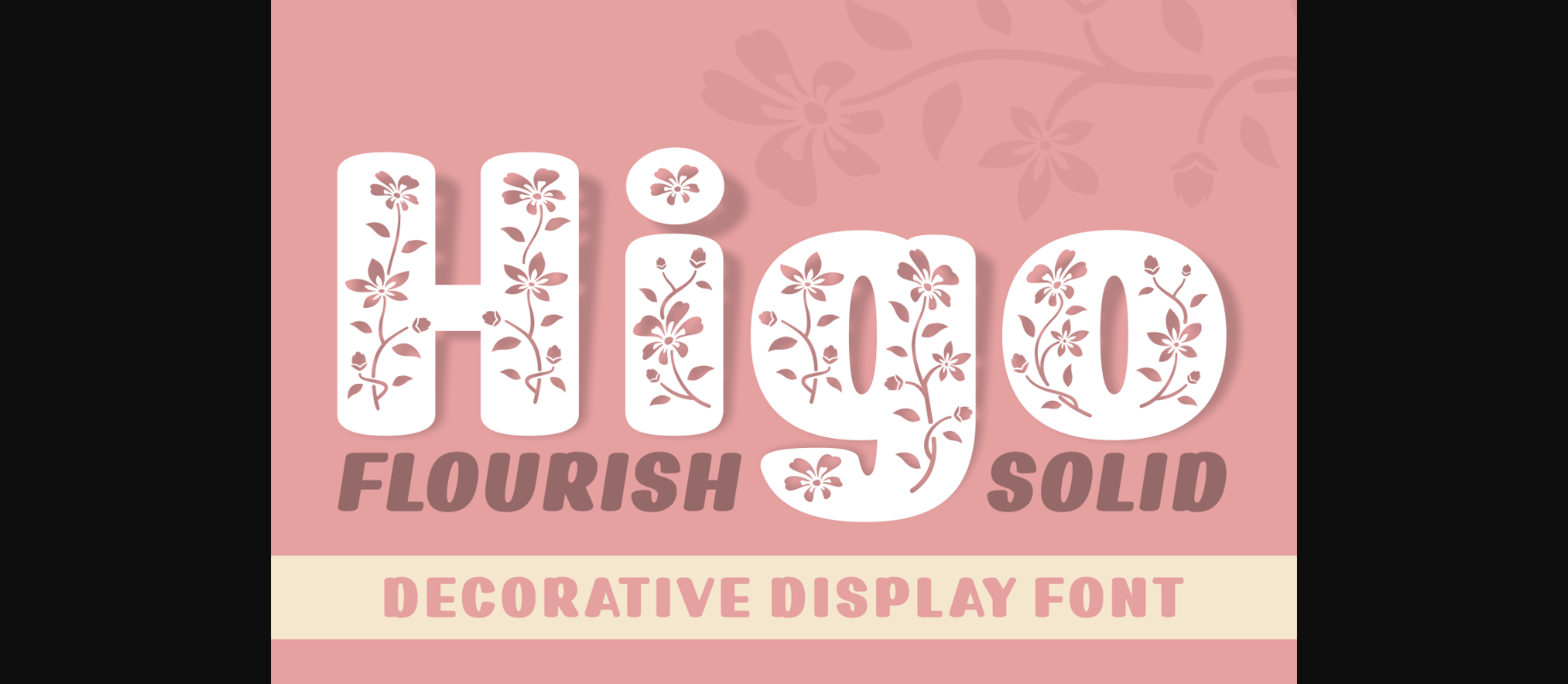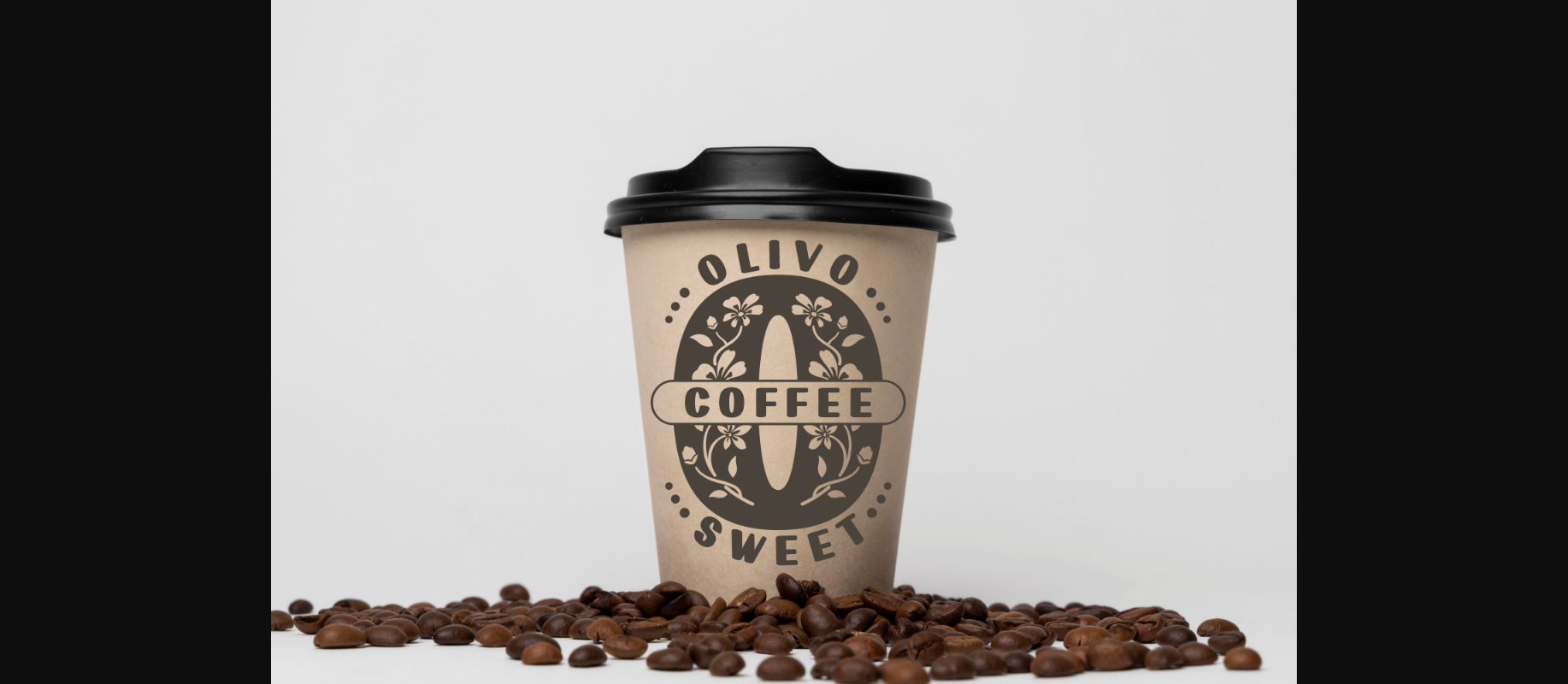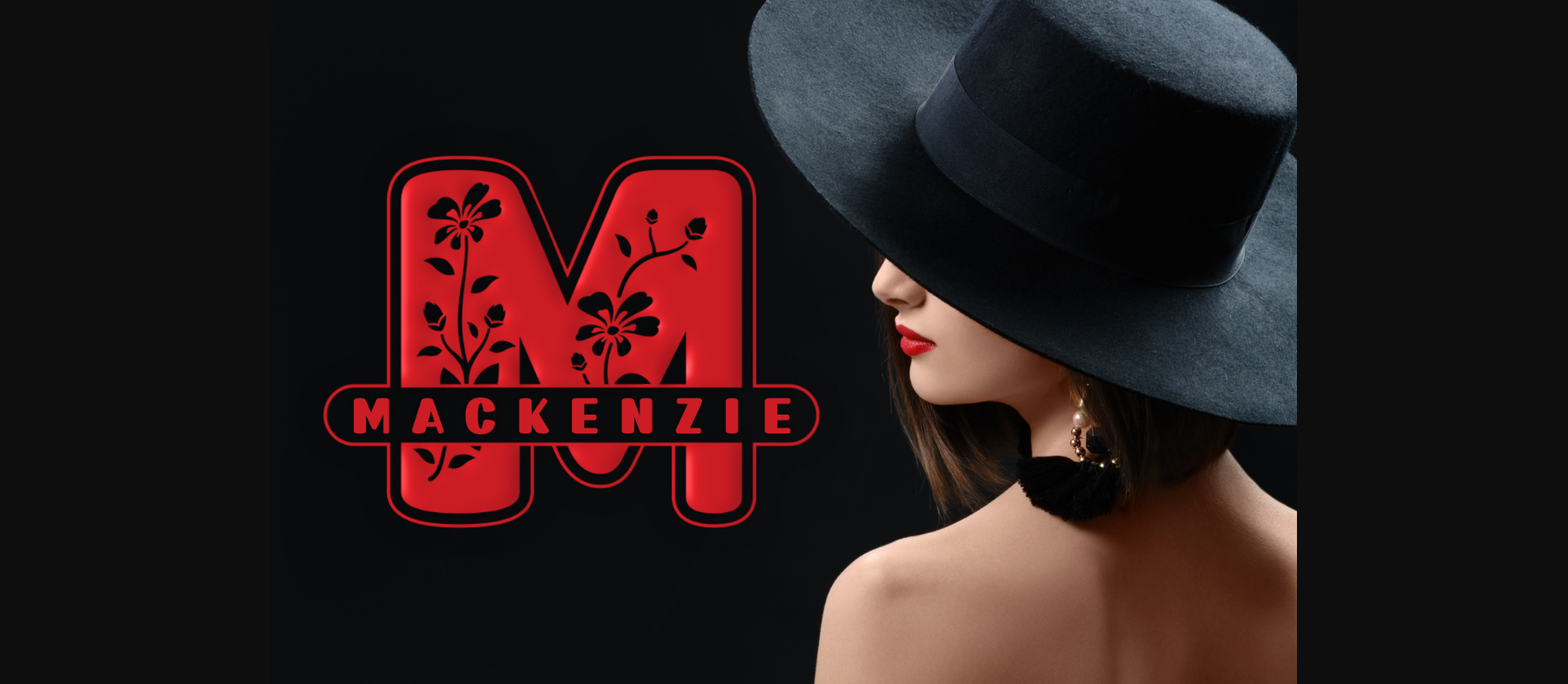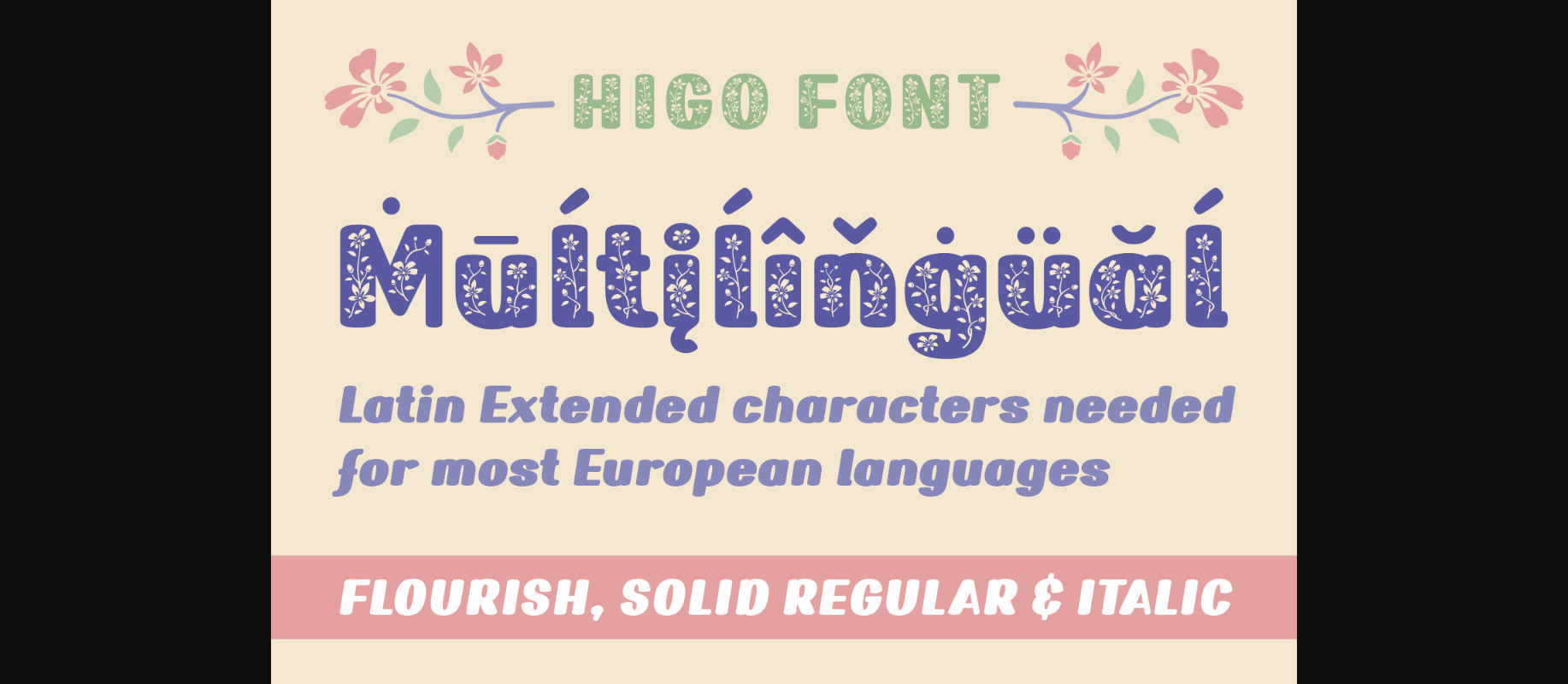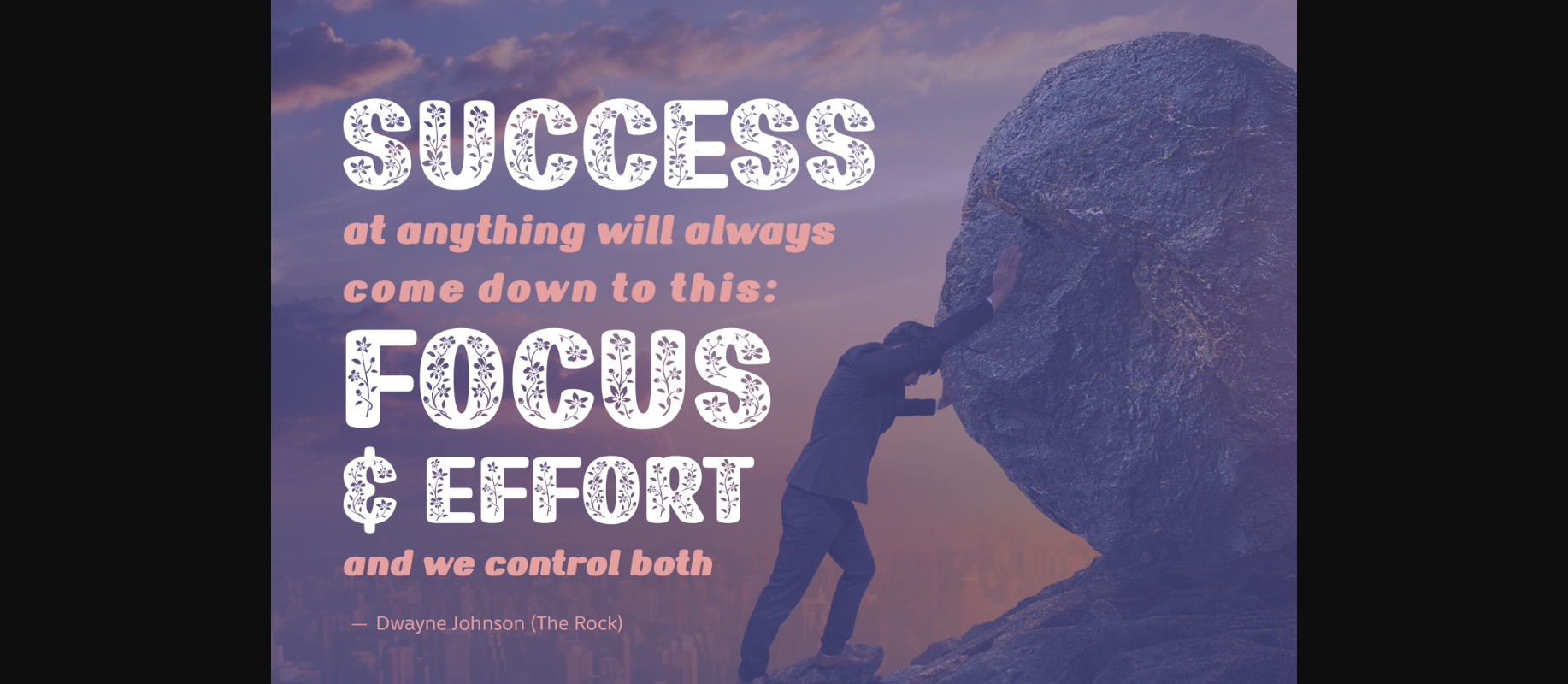
Higo Font
About Higo Font
Higo is a bold yet jolly, and bright decorative font. Whimsical and sweet, this font will make each of your designs come alive.